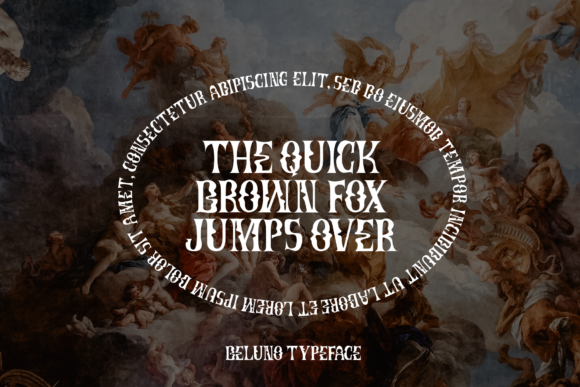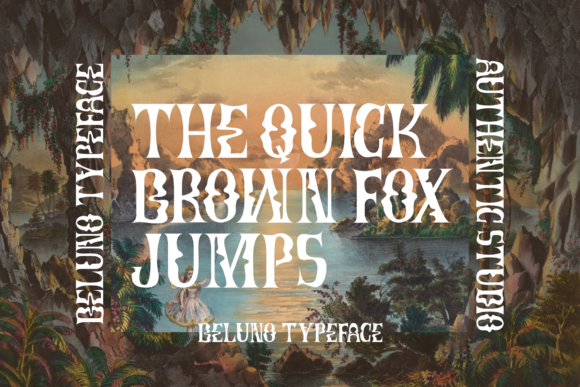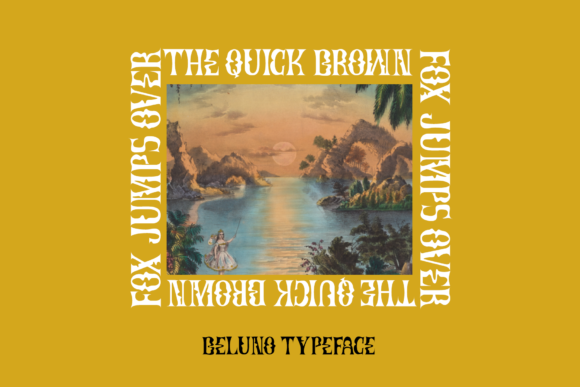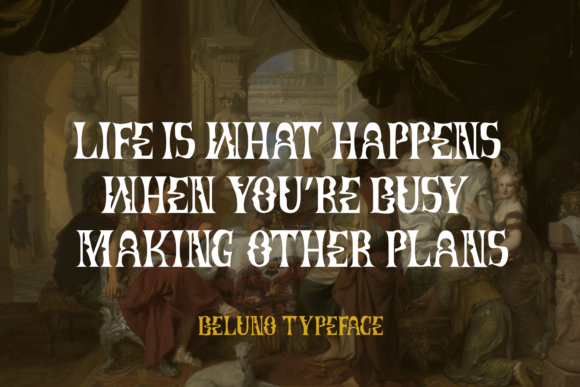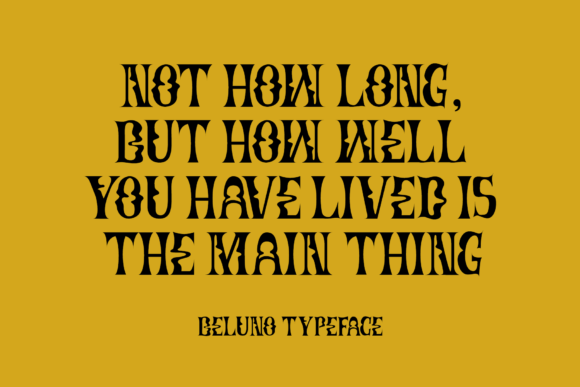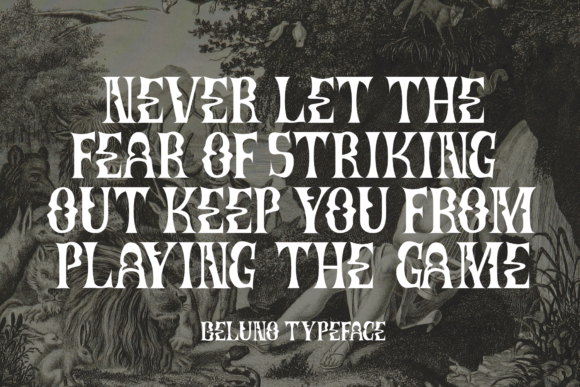
Introducing Beluno Font: Add a Dose of Fun to Your Design Projects
Are you tired of using the same old fonts in your design projects? Do you want to add a touch of personality and whimsy to your creations? Look no further than Beluno Font, a groovy serif typeface that’s retro, bold, and playful. In this article, we’ll dive into the world of Beluno Font and explore how it can help you create something truly spectacular.
What is Beluno Font?
Beluno Font is a unique and eye-catching serif typeface that’s perfect for designers and crafters looking to add a dash of fun to their projects. With its bold and playful design, Beluno Font is sure to turn heads and make your work stand out from the crowd. Whether you’re designing a logo, creating a social media graphic, or crafting a website, Beluno Font is the perfect choice for anyone looking to add a little personality to their design.
The Characteristics of Beluno Font
So, what makes Beluno Font so special? Here are just a few of its key characteristics:
- Groovy Serif Design: Beluno Font features a classic serif design with a groovy twist. Its bold lines and playful curves make it perfect for adding a touch of retro flair to your designs.
- Retro Vibe: Beluno Font is inspired by the fun and playful designs of the 1960s and 1970s. Its retro vibe is perfect for designers who want to add a little nostalgia to their work.
- Bold and Playful: Beluno Font is a bold and playful typeface that’s perfect for making a statement. Its thick lines and curly curves make it perfect for headlines, titles, and other design elements.
How to Use Beluno Font in Your Design Projects
Now that we’ve covered the basics of Beluno Font, let’s talk about how to use it in your design projects. Here are a few ideas to get you started:
- Logos and Branding: Beluno Font is perfect for creating fun and playful logos that will help your brand stand out from the crowd.
- Social Media Graphics: Add a touch of personality to your social media graphics with Beluno Font. Its bold and playful design is perfect for creating eye-catching posts and stories.
- Web Design: Beluno Font is a great choice for web designers who want to add a little whimsy to their designs. Use it for headlines, titles, and other design elements to create a fun and playful website.
- Crafting and DIY Projects: Beluno Font is also perfect for crafters and DIY enthusiasts who want to add a personal touch to their projects. Use it to create fun and playful titles, labels, and other design elements.
Tips and Tricks for Getting the Most Out of Beluno Font
Here are a few tips and tricks for getting the most out of Beluno Font:
- Experiment with Different Sizes: Beluno Font looks great in a variety of sizes, from small and delicate to large and bold. Experiment with different sizes to find the one that works best for your design.
- Pair it with Other Fonts: Beluno Font pairs well with a variety of other fonts, from simple sans serifs to bold script fonts. Experiment with different pairings to find the one that works best for your design.
- Use it for Headlines and Titles: Beluno Font is perfect for headlines and titles, where its bold and playful design can really shine.
| Font Name | Beluno Font |
| Author | Authentic Studio |
In conclusion, Beluno Font is a groovy serif typeface that’s perfect for designers and crafters who want to add a little fun and personality to their projects. With its bold and playful design, Beluno Font is sure to turn heads and make your work stand out from the crowd. So why not give it a try and see what kind of spectacular designs you can create?
Get creative and use Beluno to design something truly amazing! Its unique blend of retro flair and playful personality makes it the perfect choice for anyone looking to add a little excitement to their design work.